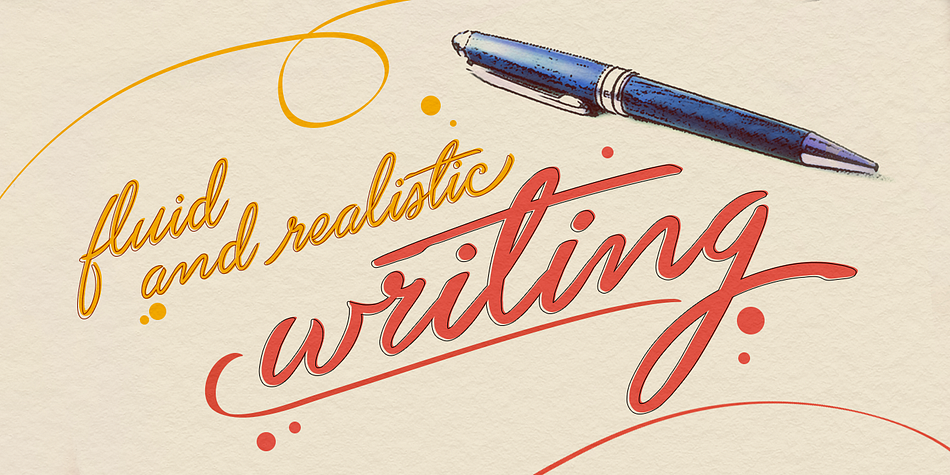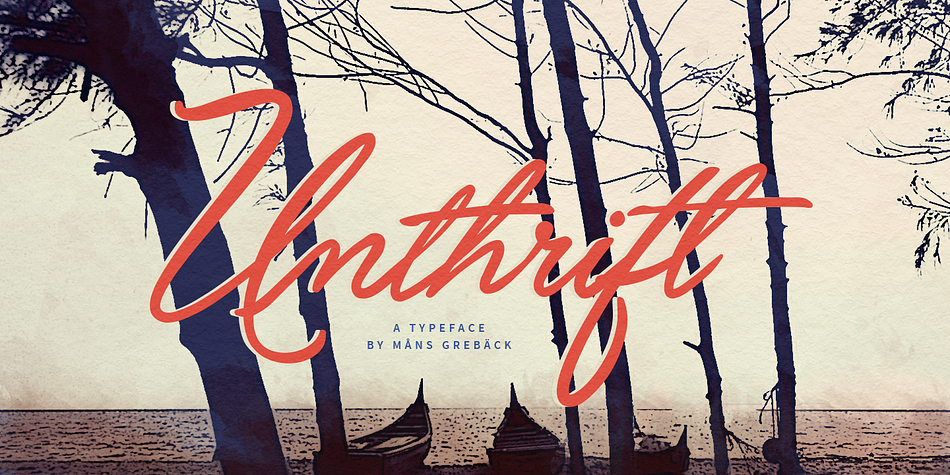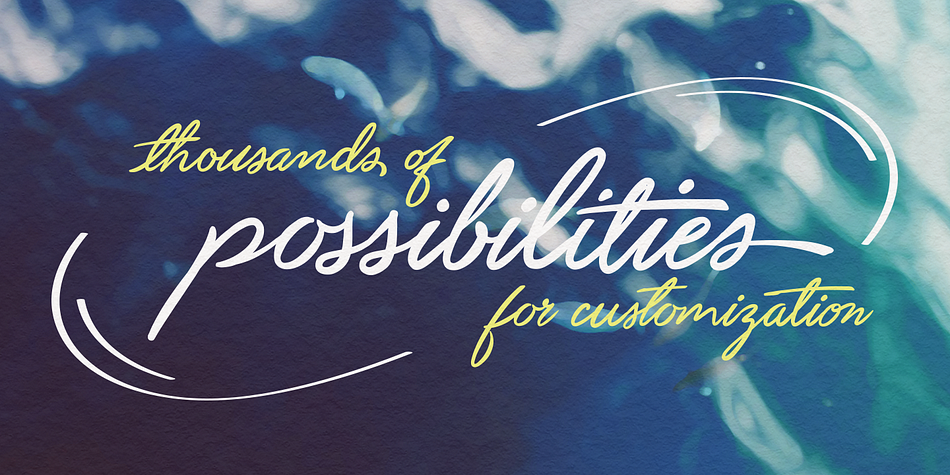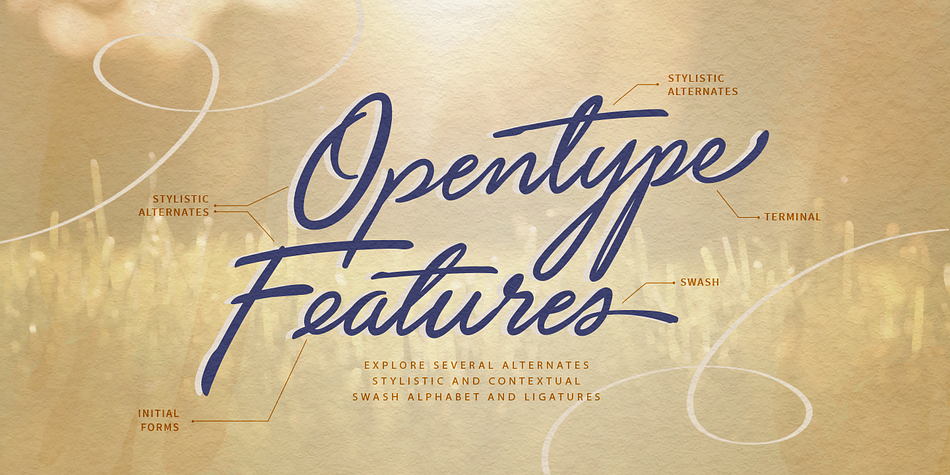
Designed by Måns Grebäck, Unthrift is a hand drawn and script font family. This typeface has two styles and was published by Aring Typeface AB.
An alternate alphabet, end letter alphabet, initializing letter alphabet and swash letter alphabet are some of the features of Unthrift. There are also contextual alternates and a lot of ligatures.
All these features combined make for a very fluid and realistic writing, and thousands of possibilities for customization.